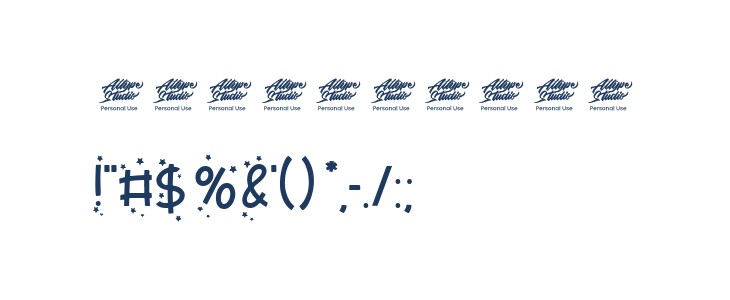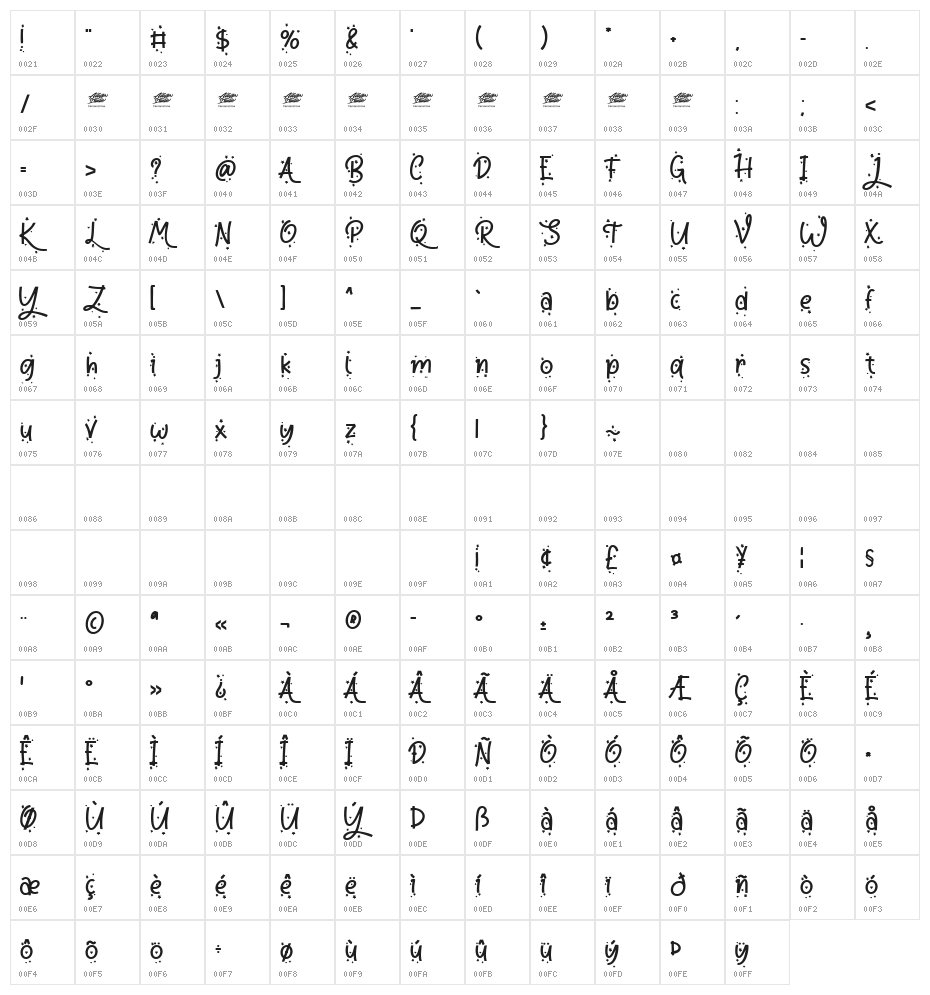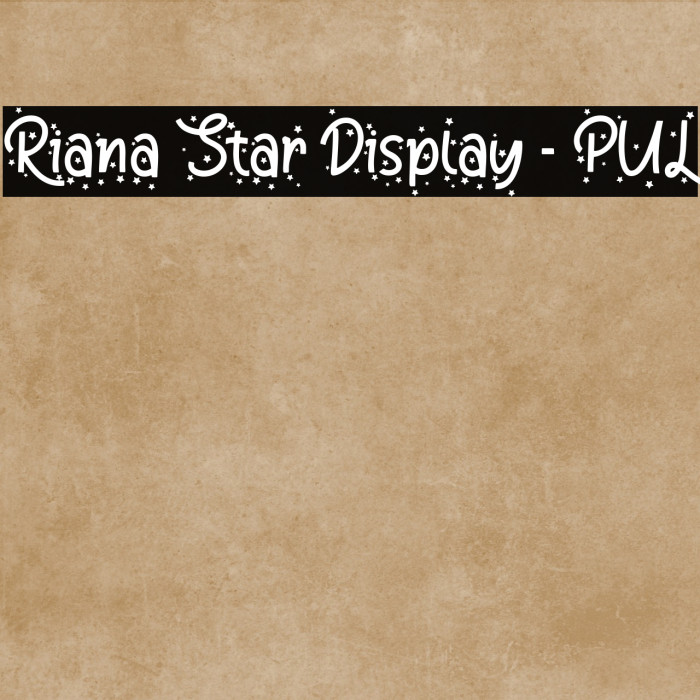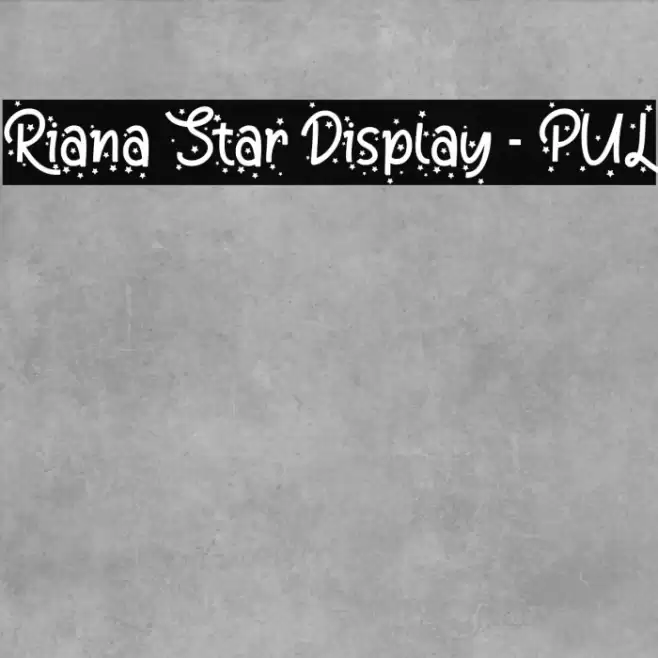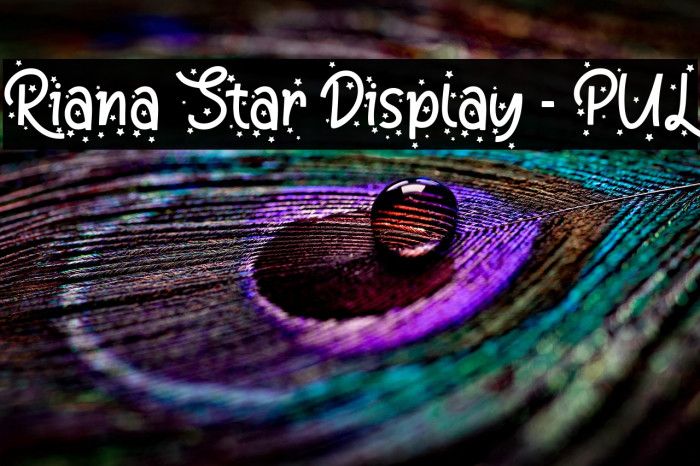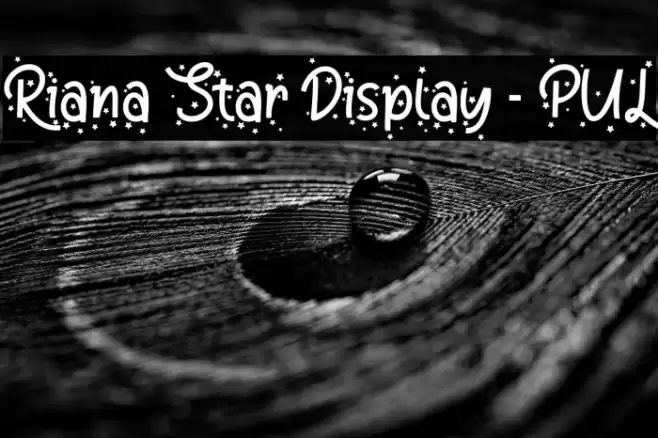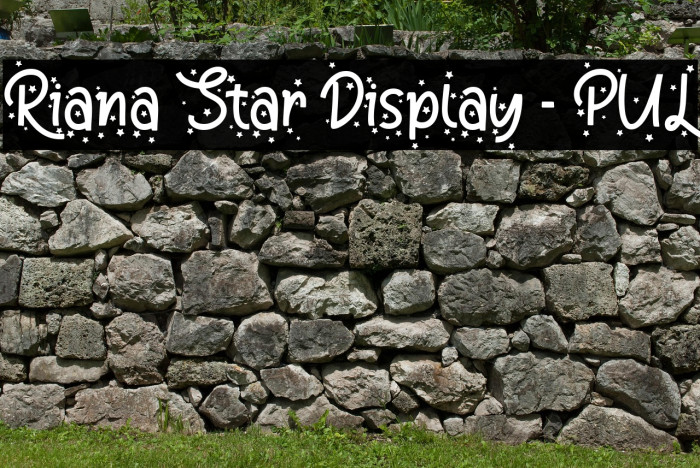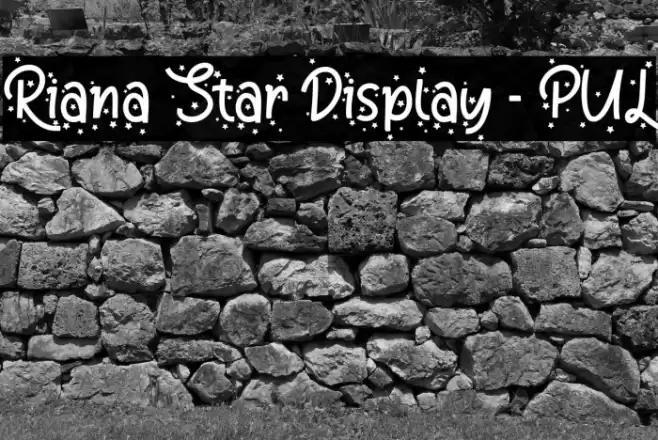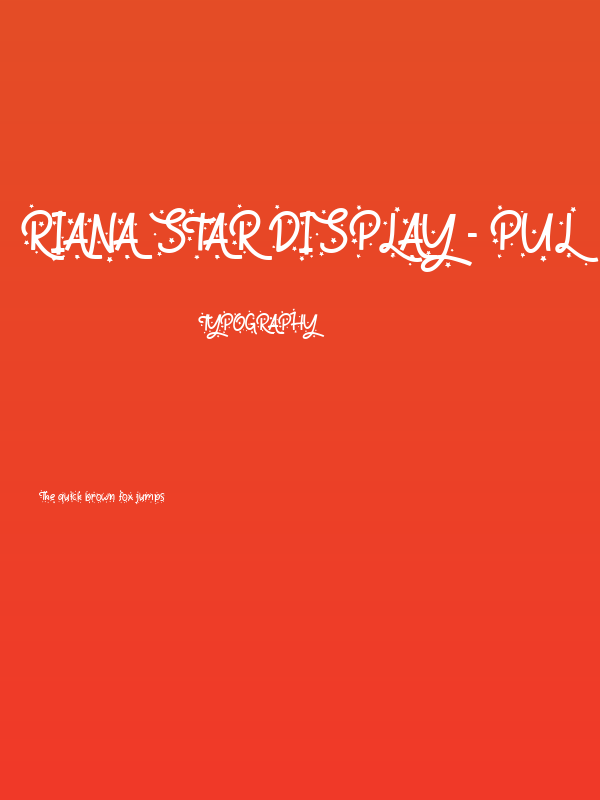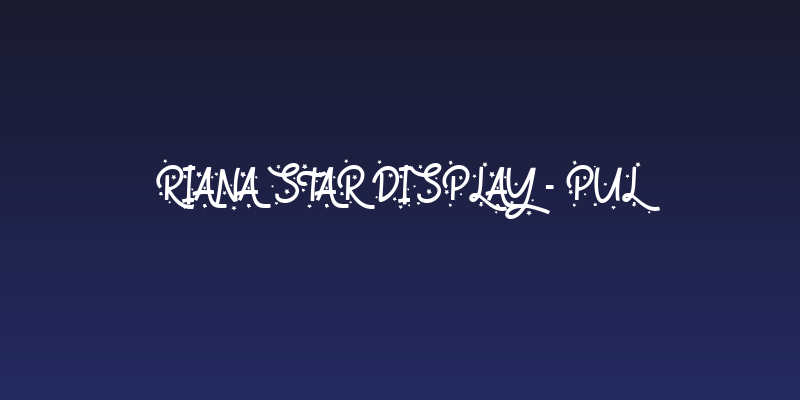
Riana Star Display - PUL Font
Riana Star Display - PUL Description
This playful and whimsical font features a unique design where each letter is adorned with small star shapes, creating a lively and energetic appearance. The uppercase and lowercase letters maintain a consistent style, with rounded edges and a slightly informal, hand-drawn feel. The font includes a full set of characters, including numbers and special symbols, all embellished with the same star motif. This decorative style is perfect for projects that require a touch of fun and creativity, making it ideal for children's materials, party invitations, or any design that aims to capture a sense of wonder and imagination.
| Overall Style | Playful and Whimsical |
| Use Case | Headlines, Logos, Decorative Text |
| Proposed Projects | Ideal for children's books, party invitations, greeting cards, and playful branding. |